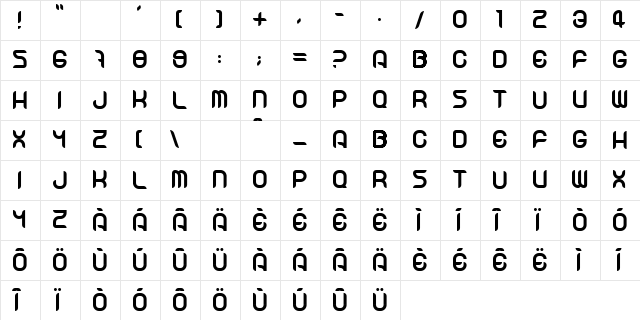
Complete ibiscus Regular glyph index. Displaying only characters natively supported by ibiscus Regular font.
ibiscus is a composed and adaptable typeface that performs quietly and consistently across a wide range of design contexts.